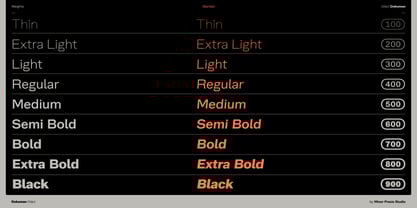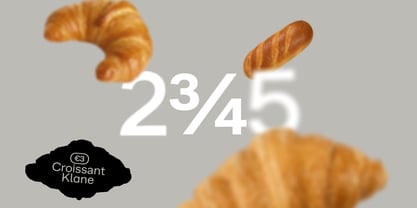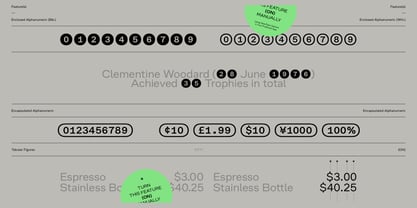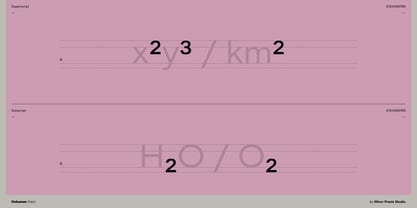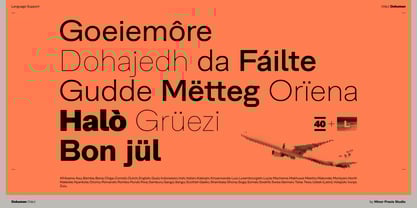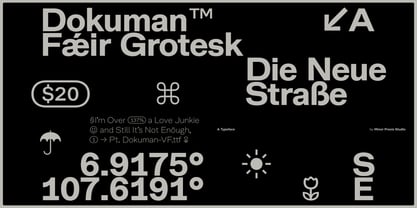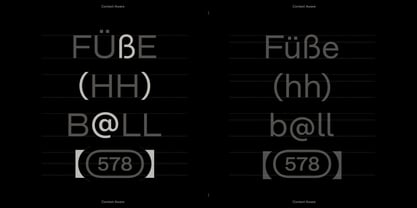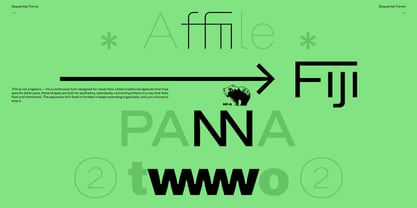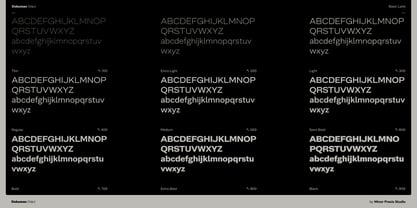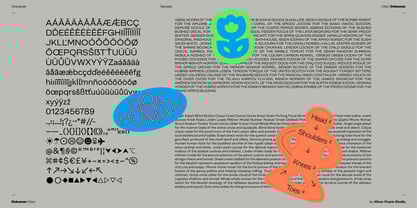
Dokuman
von Minor Praxis
Die Schriftfamilie Dokuman wurde von Taufik Oktama entworfen und von Minor Praxis veröffentlicht. Dokuman enthält 18 Stile und Familienpaketoptionen.
Dokuman is a modern typeface that blends clean aesthetics with contemporary design sensibilities. Minimalist structure, balanced proportions, and sharp yet smooth letterforms. Offers excellent readability across both digital and print applications.